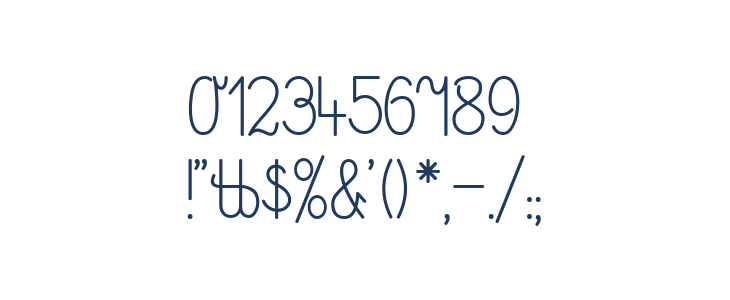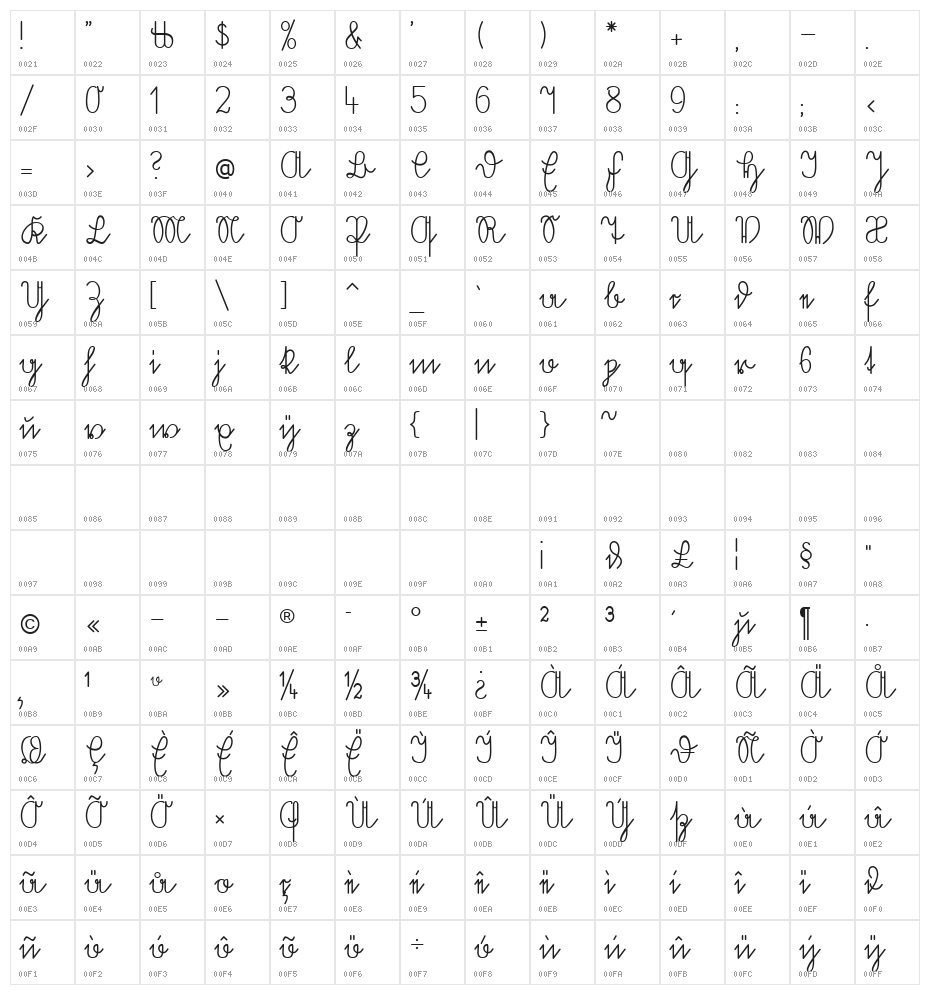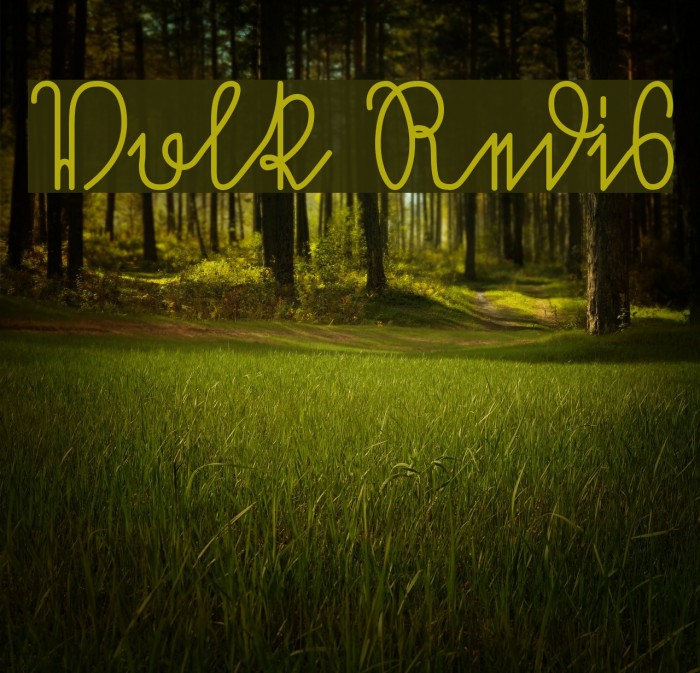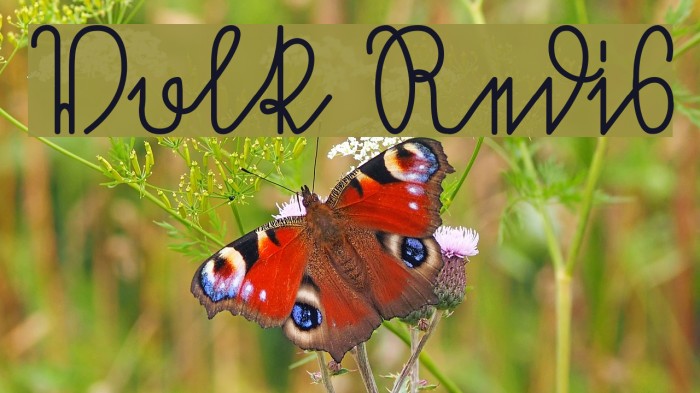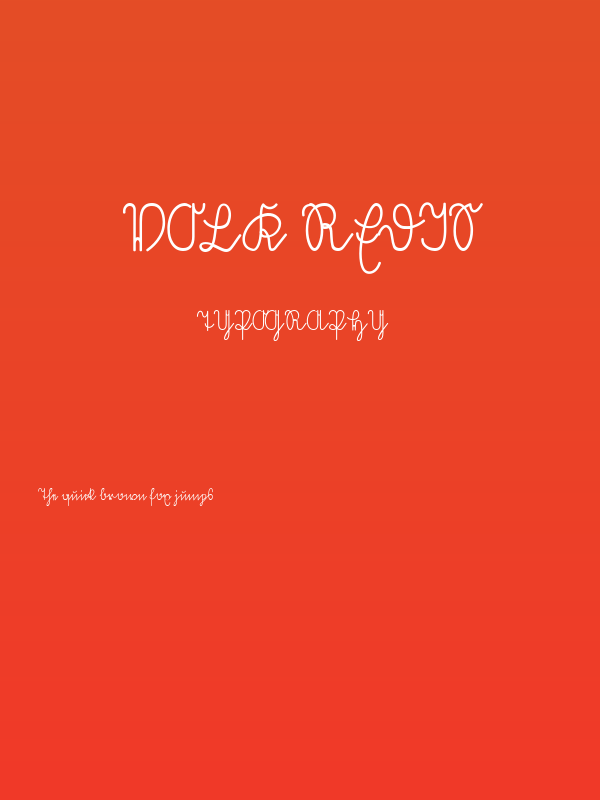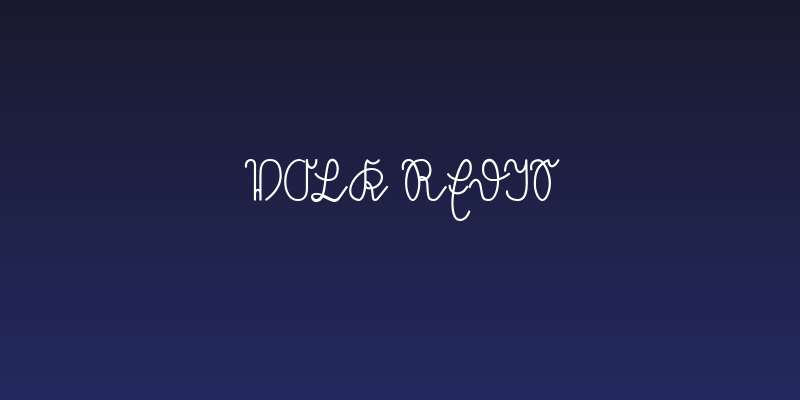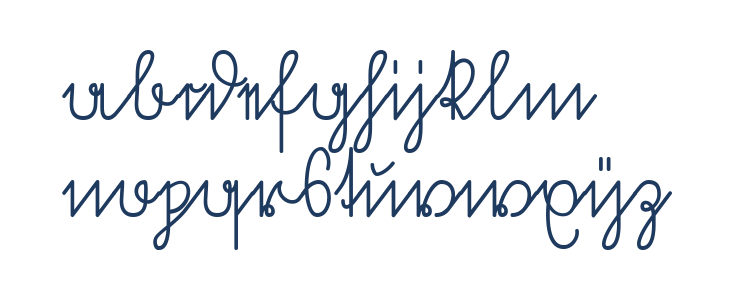
Volk Redis Font
Volk Redis Description
This font features a unique and artistic script style, characterized by its flowing, interconnected letters that mimic a handwritten cursive. The uppercase letters exhibit a playful looped design, while the lowercase letters maintain a consistent fluidity, enhancing the overall elegance. Numbers are crafted with a similar flair, providing a cohesive look across all characters. The special characters are thoughtfully integrated, maintaining the font's whimsical yet sophisticated appearance. This font's distinctive style makes it suitable for creative projects where a personal touch is desired.
| Proposed Projects | Ideal for wedding invitations, greeting cards, personal branding, and artistic posters. |